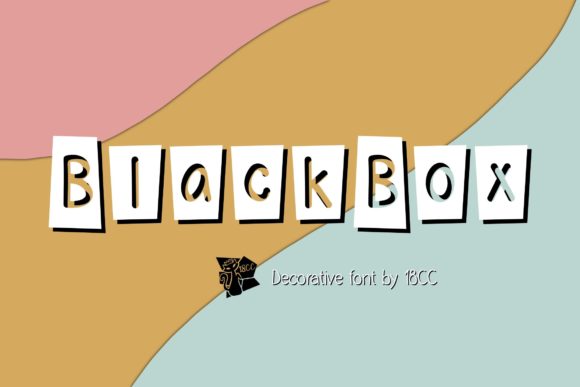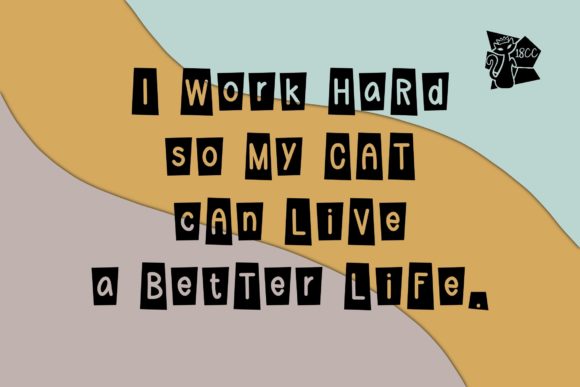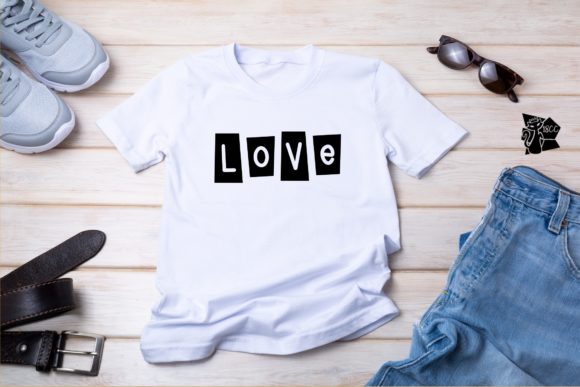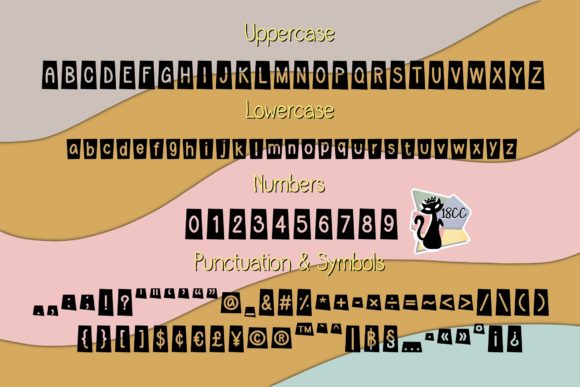
BlackBox Font: A Playful Decorative Font for Crafts & DIY Projects
About the BlackBox Font
Elevate your designs with BlackBox Font, a font that combines sophistication with readability. BlackBox is a cool and fun looking decorative font. Whether you’re using it for crafts, digital design, presentations, or making greeting cards, this font has the potential to become your favorite go-to font, no matter the occasion!
BlackBox’s playful energy makes it ideal for headlines, short text blocks on posters, and branding elements where a bold, attention-grabbing presence is desired. It works exceptionally well for projects targeting a younger demographic or conveying a fun, quirky brand identity. However, its decorative nature makes it unsuitable for body text, long paragraphs, or user interface elements requiring high readability.
Consider pairing BlackBox with a clean sans-serif like Open Sans for a balanced contrast, or a more geometric sans-serif such as Montserrat for a modern feel. For a touch of elegance, a subtle serif like Merriweather can create a sophisticated juxtaposition. Avoid pairing it with other highly decorative fonts, as this can lead to visual clutter.
Its core personality is undeniably bold and playful, conveying a sense of youthful energy and creativity. Projects involving children’s products, entertainment, or lifestyle brands would benefit most from its distinctive character.
BlackBox Font Usage Examples
BlackBox Font Example